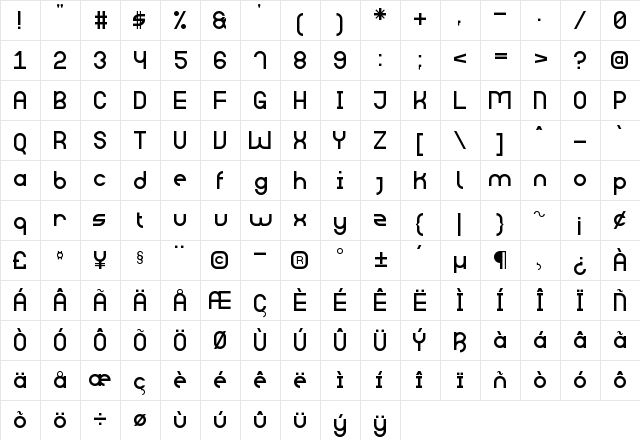
Big Daddy St Regular
Design Context for Big Daddy St Typeface
Big Daddy St offers clean, dependable letterforms without strong stylistic allegiance, making it a practical choice for designers who need flexibility.